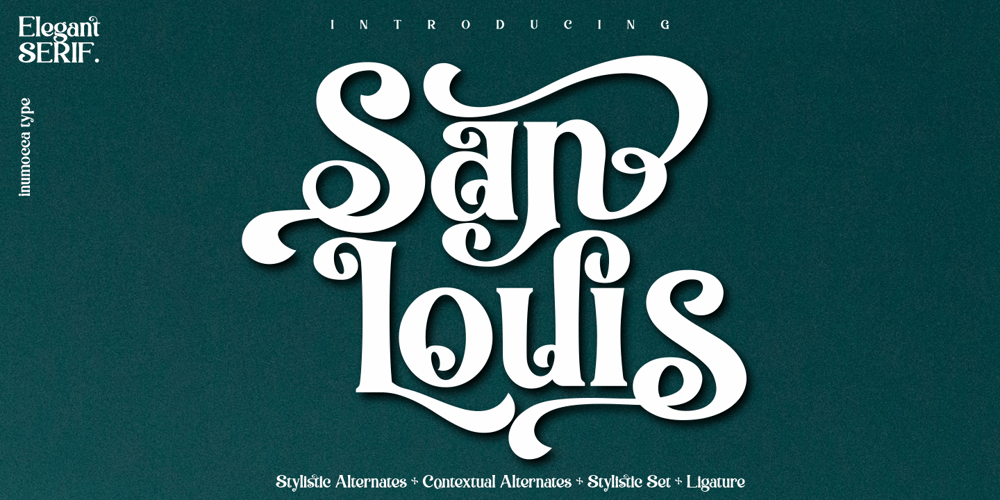
San Louis
San Louis font
San Louis Font Family was designed by Inu Mocca and published by Inumocca. San Louis contains 1 styles and family package options. San Louis is an Elegant Serif typeface , Modern , Classy and Glamour Worlds.Awesome Stylictic Set, Beautiful Ligature and unique contecttual alternates, stylistic alternates. Really playful typeface to covering your Project, like Lettering, Website Interface, Magazine, Branding, Poster, wedding invitations, Quotes Lettering, Logos, and more your project design.- Unique glyphs- Multilingual Characters- UPPERCASE- Lowercase- Numeric- Symbol- Punctuation Character- Ligature- Contextual Alternates- Stylistic Alternates- SS01, SS02, SS03, SS04